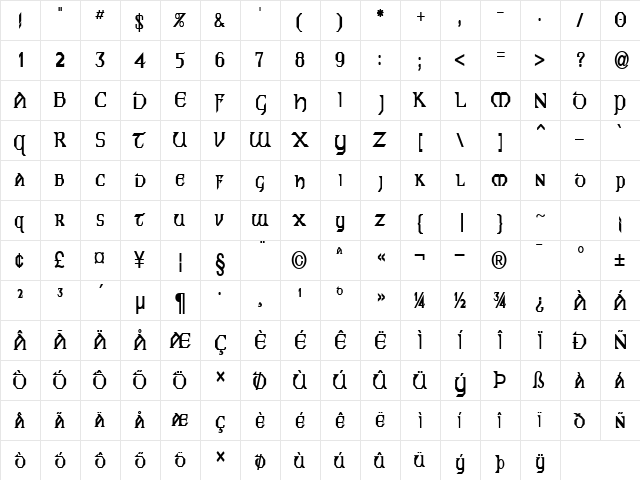
Norman-Condensed Bold
Design Context for Norman-Condensed Typeface
Norman-Condensed takes a measured approach to typography — its balanced proportions and neutral character make it a reliable workhorse for both digital and print work. Its bold stroke weight gives it real presence on the page. The condensed width makes it efficient for tight spaces without sacrificing legibility.
Pro Tip: Use Norman-Condensed in both headline and body roles to test its range before committing to a single application.